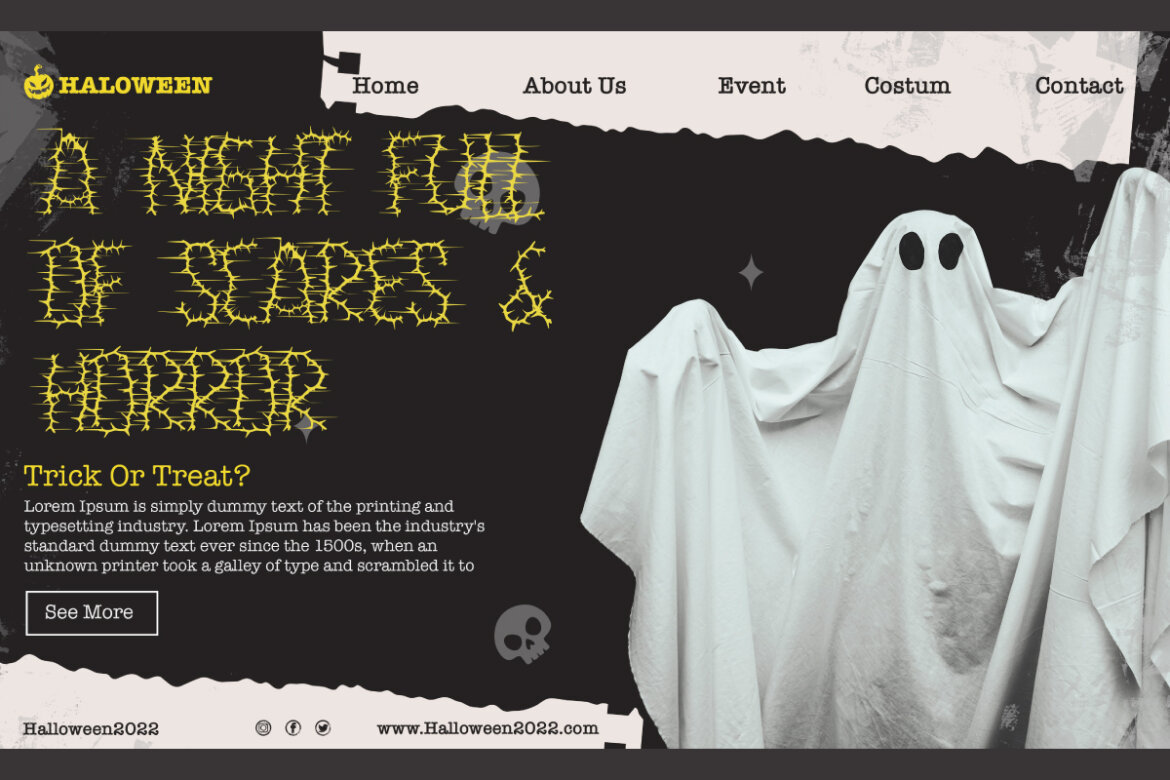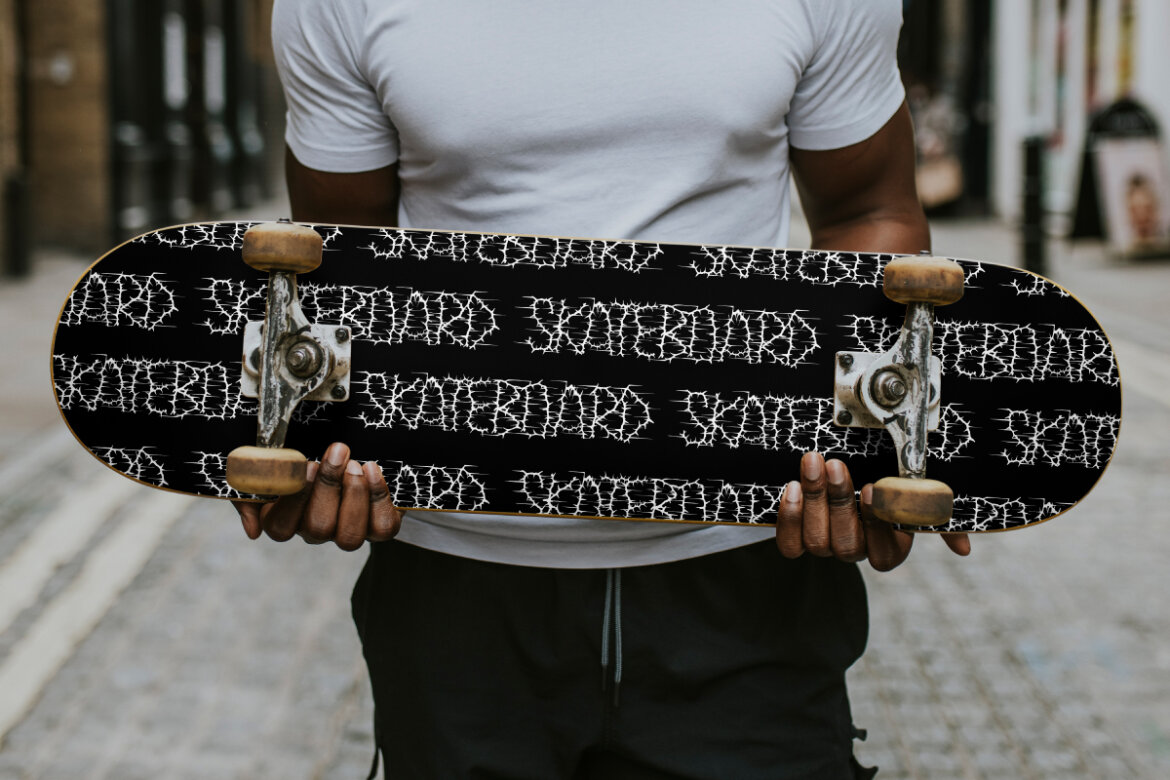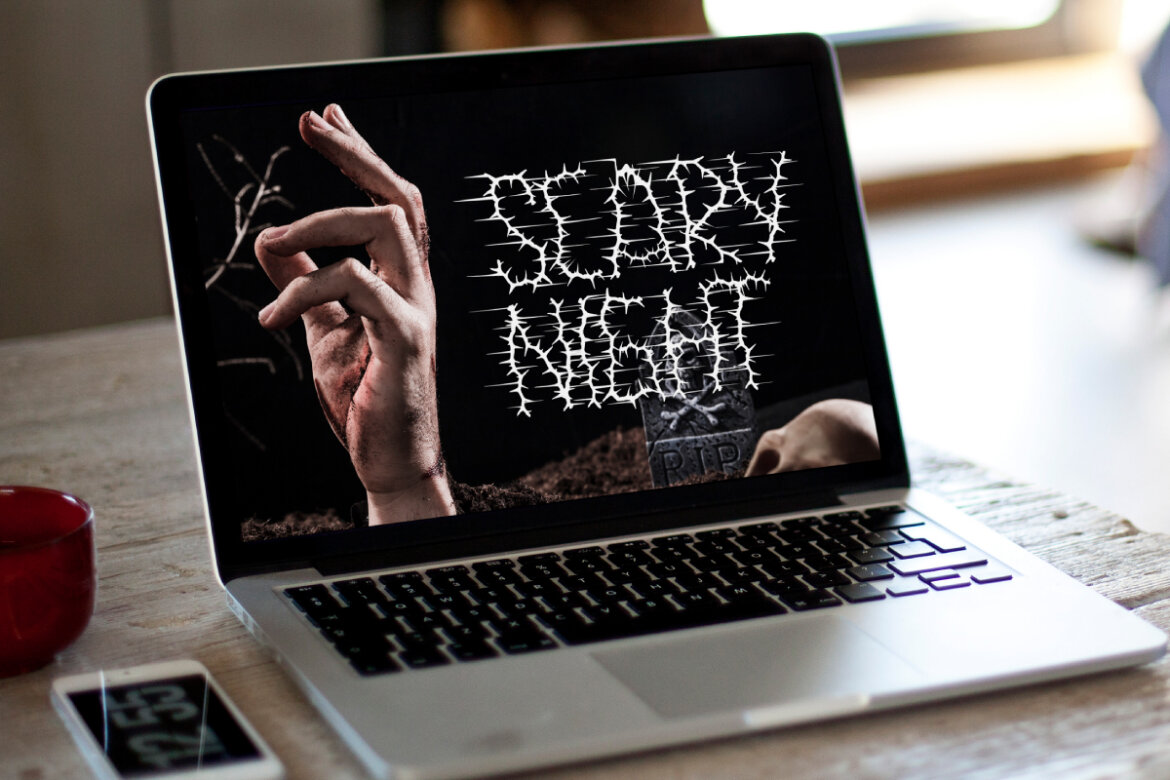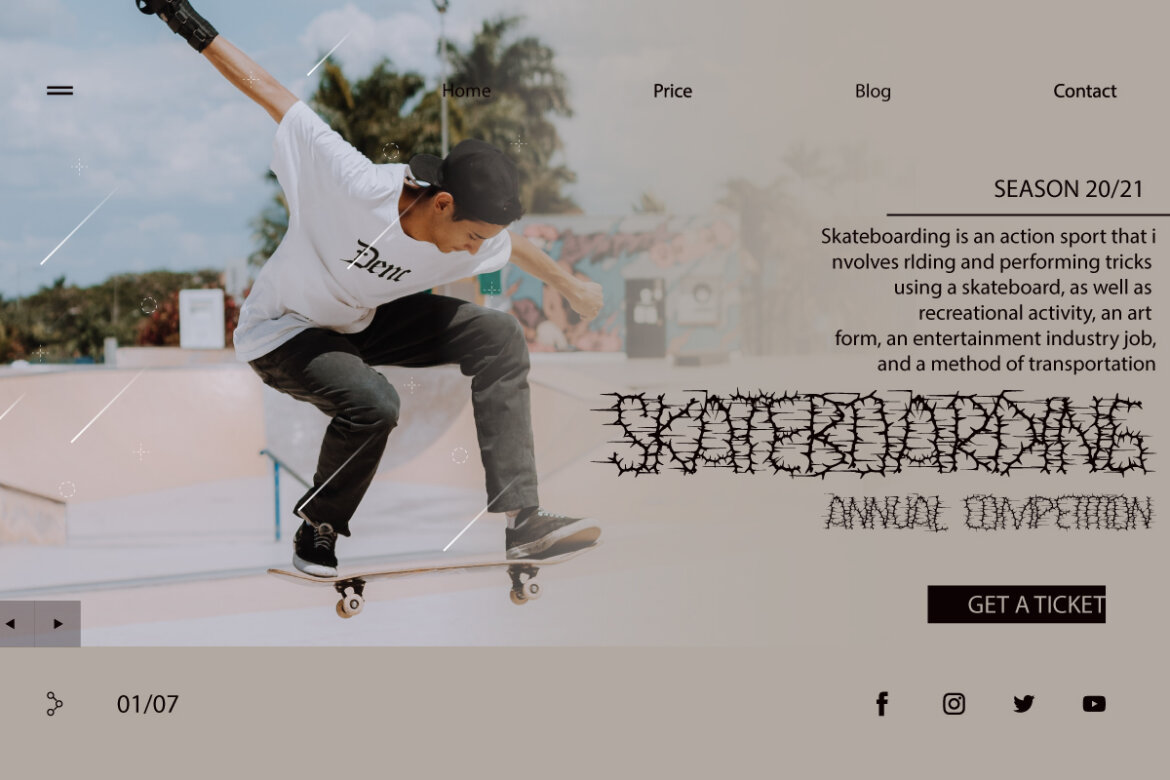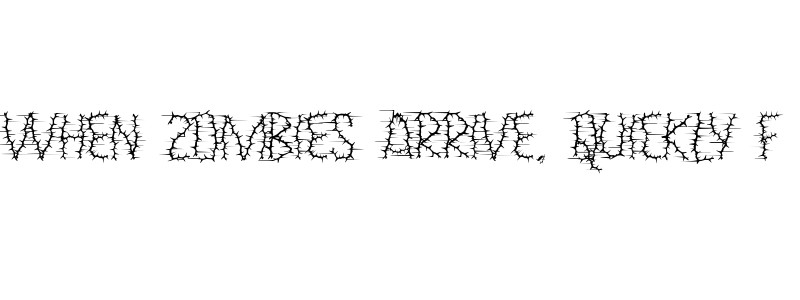
Blood Attack FREE Font
Blood Attack Font is a heavy black metal font with sharp and scream effect. This is a scary genre that will create scars from thorny branches, intended for use in designs that create a tense atmosphere such as, brochure, cover album, embroidery designs on clothes, flyer, header, logos, packaging design, Halloween poster, product label, quotes, screen print, signage, sticker, tag, title, website display, and much more.
Blood Attack Font comes with a full set of ALL CAPS for Uppercase and Lowercase letters, Number, Punctuation, and Symbol. It is designed for your creative industry needs with scary stylish bloody attacks, such as accessories, action sports like skateboarding, artist’s frames, clothing, content creator, event organizer, film, game, graphic design, handicraft, horror cinema, merchandise, metal band musician, printing, publishing, web designer, etc.